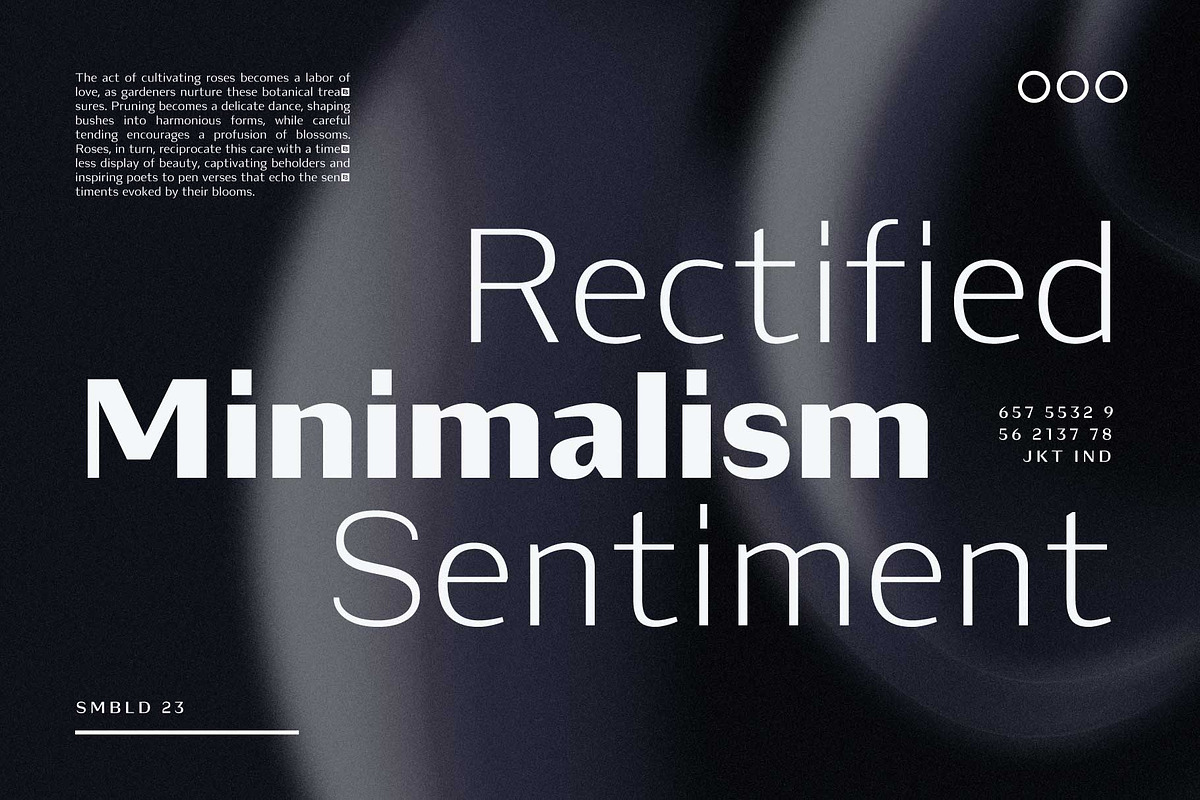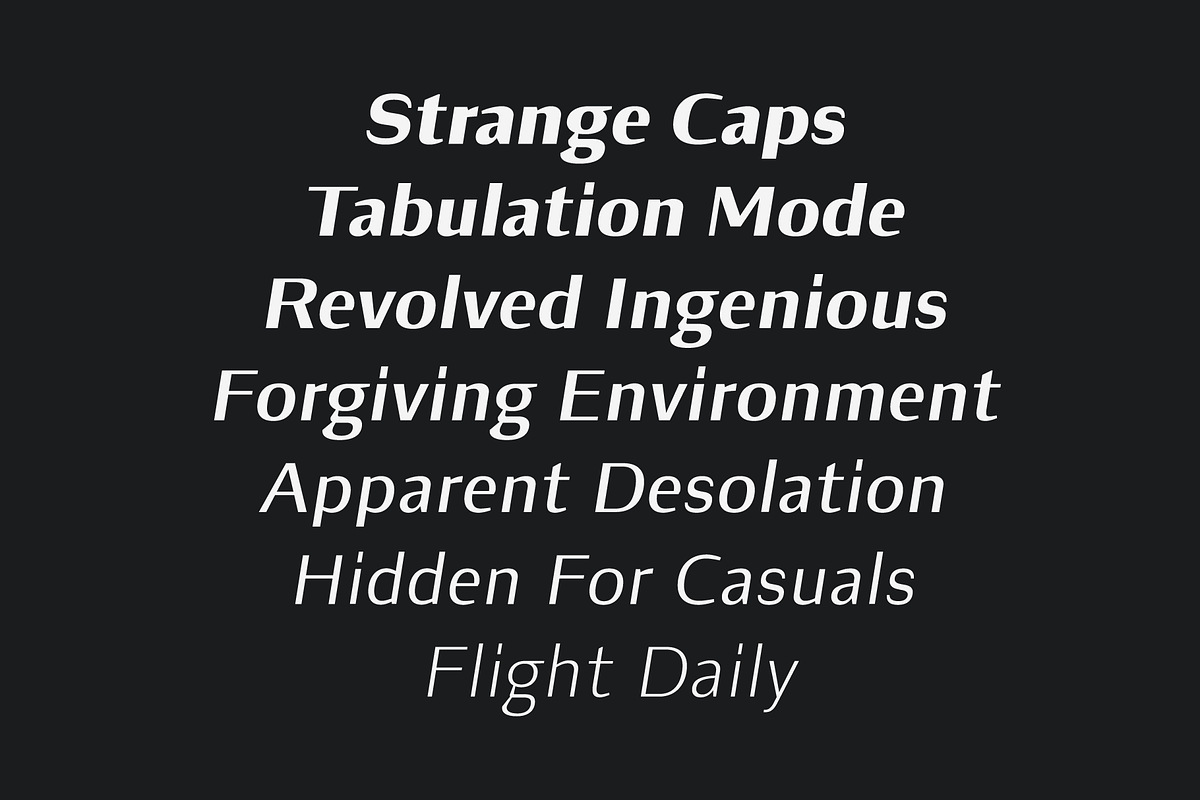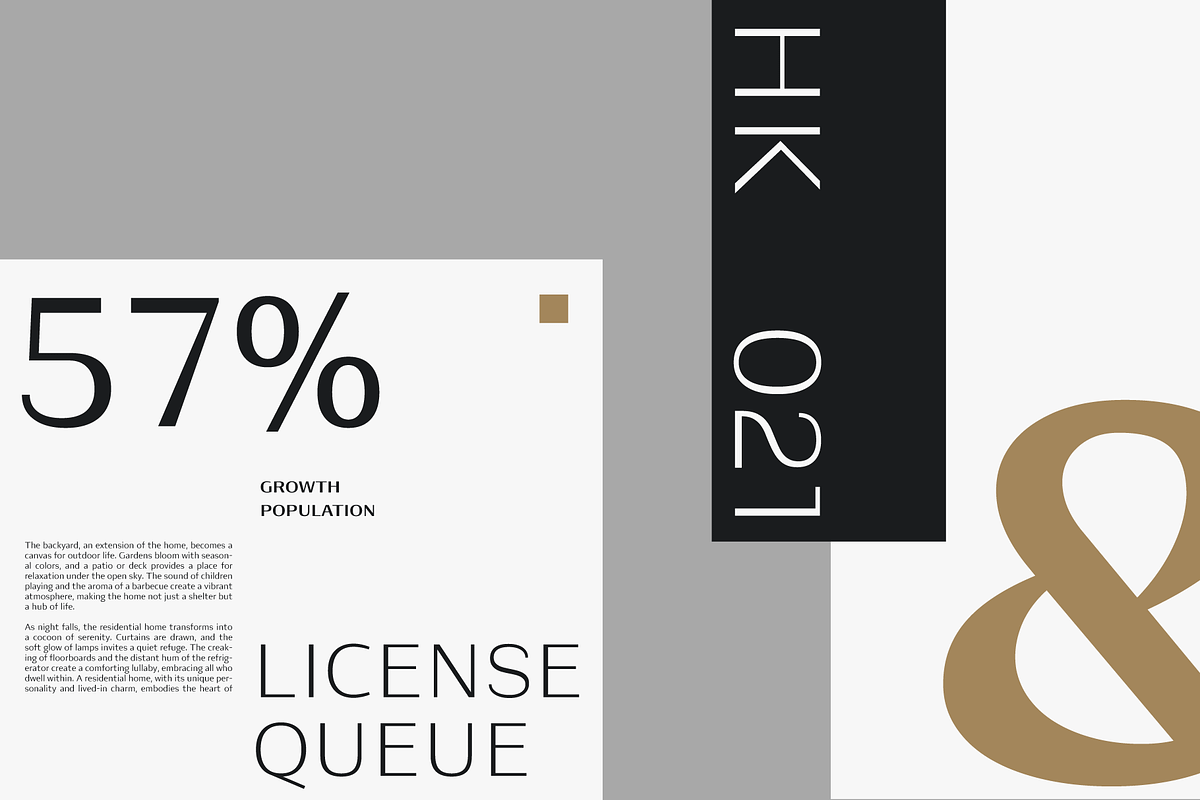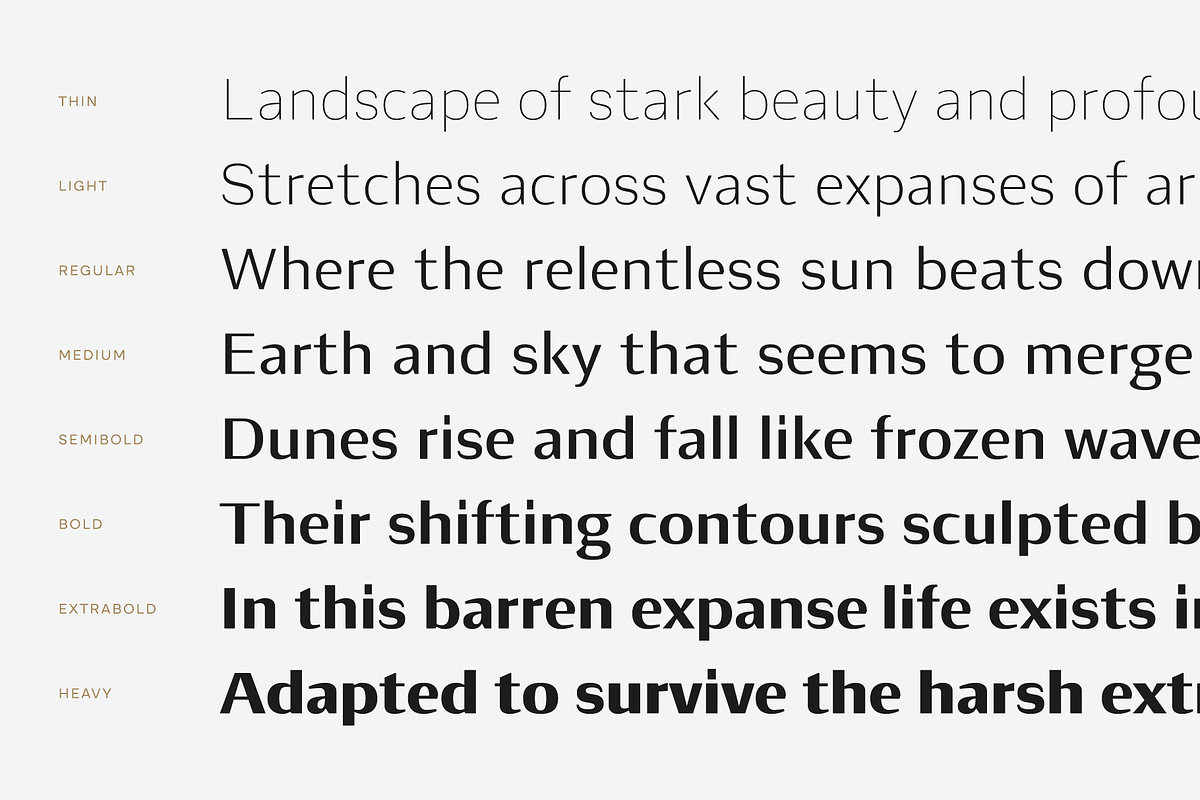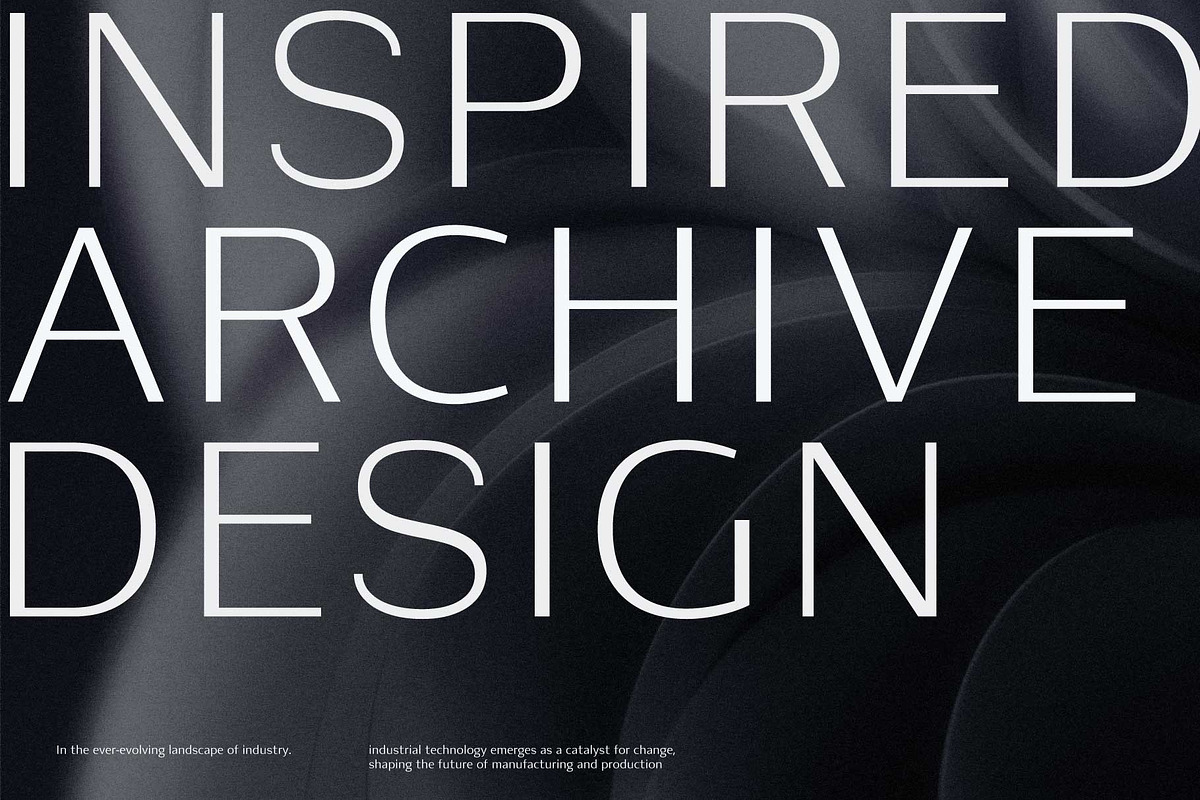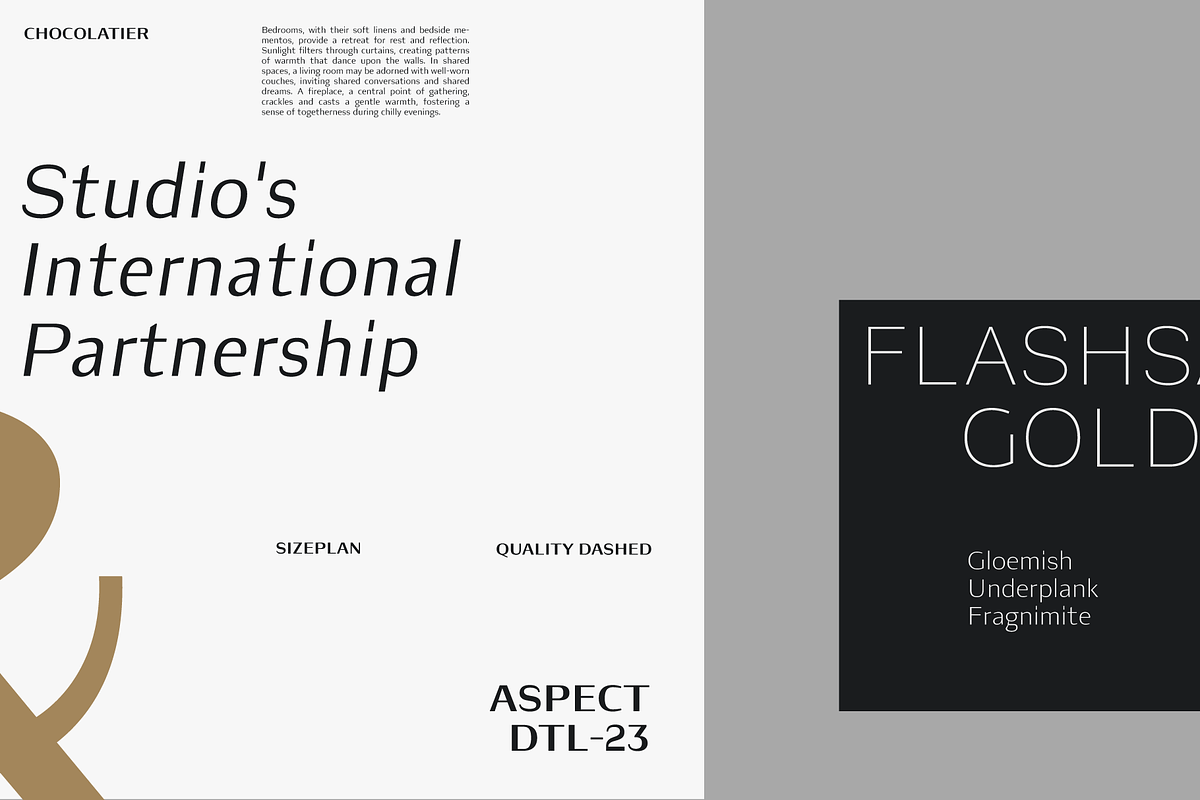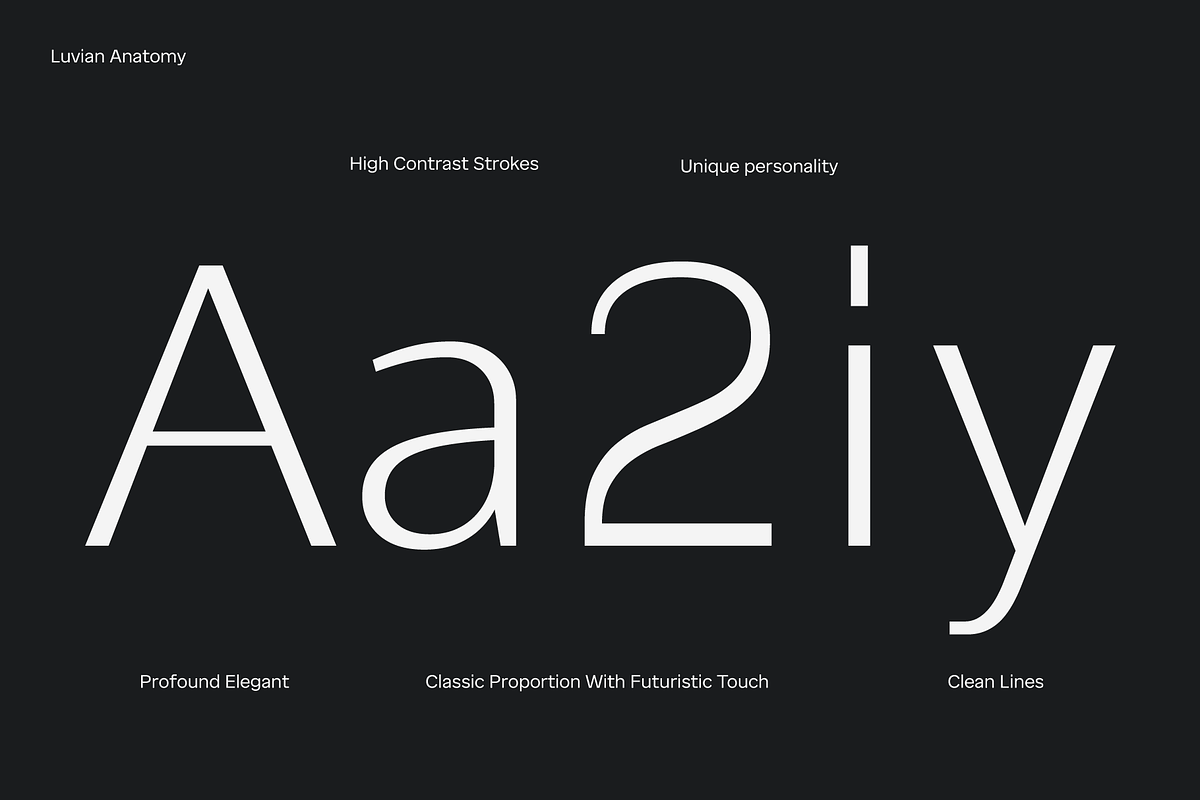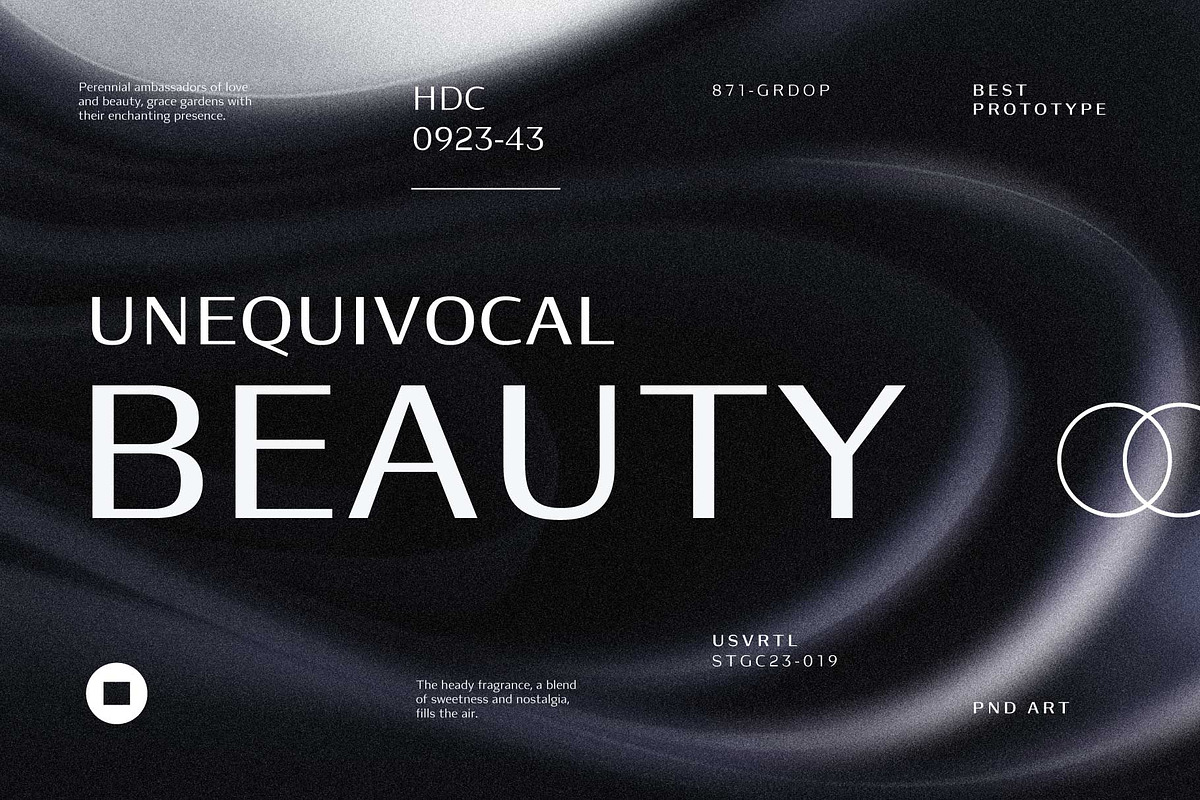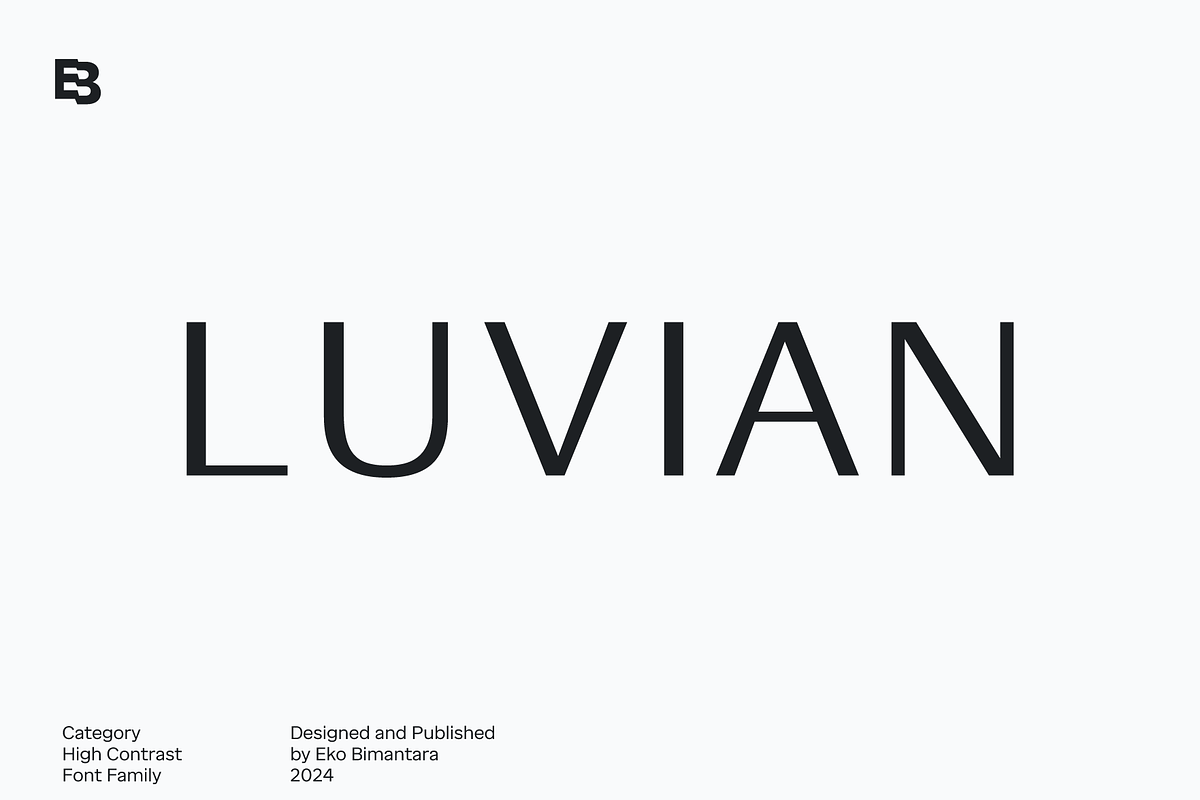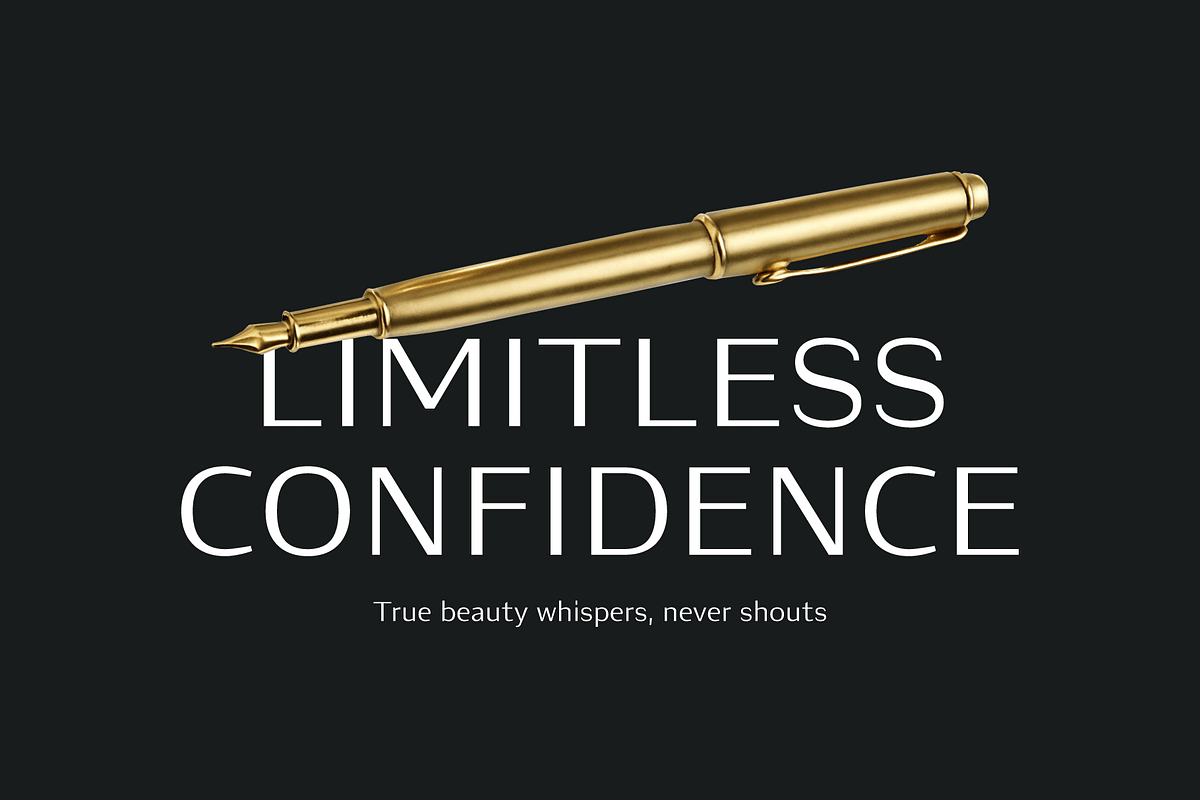
Luvian; Elegant Font Family
Luvian emerges as a high-contrast sans font family renowned for its elegant demeanor and striking visual presence. With a seamless blend of classic charm and futuristic allure, Luvian captivates the eye with its high-contrast strokes, creating a visually dynamic experience. Its graceful curves and meticulously crafted letterforms exude sophistication, making it a standout choice for designers seeking to infuse their projects with timeless elegance and contemporary flair.
Versatile and adaptable, Luvian finds its place across a spectrum of design applications, from commanding displays and large headers to intricate layouts and logos. Its ability to seamlessly integrate into various layout designs, websites, brand identities, product packaging, and even text ensures its utility across diverse creative endeavors. Whether employed as a web font or in broad graphic design projects, Luvian stands as a beacon of creativity, elevating any design it graces with its refined aesthetic and distinctive charm.